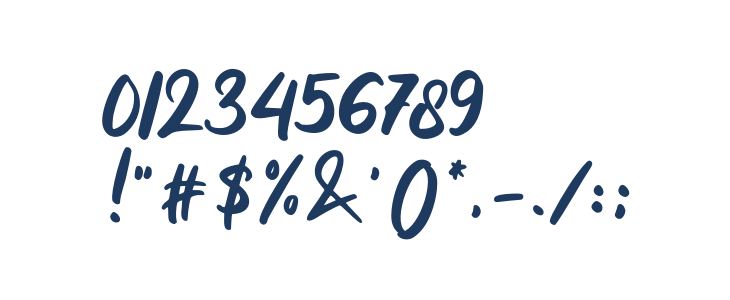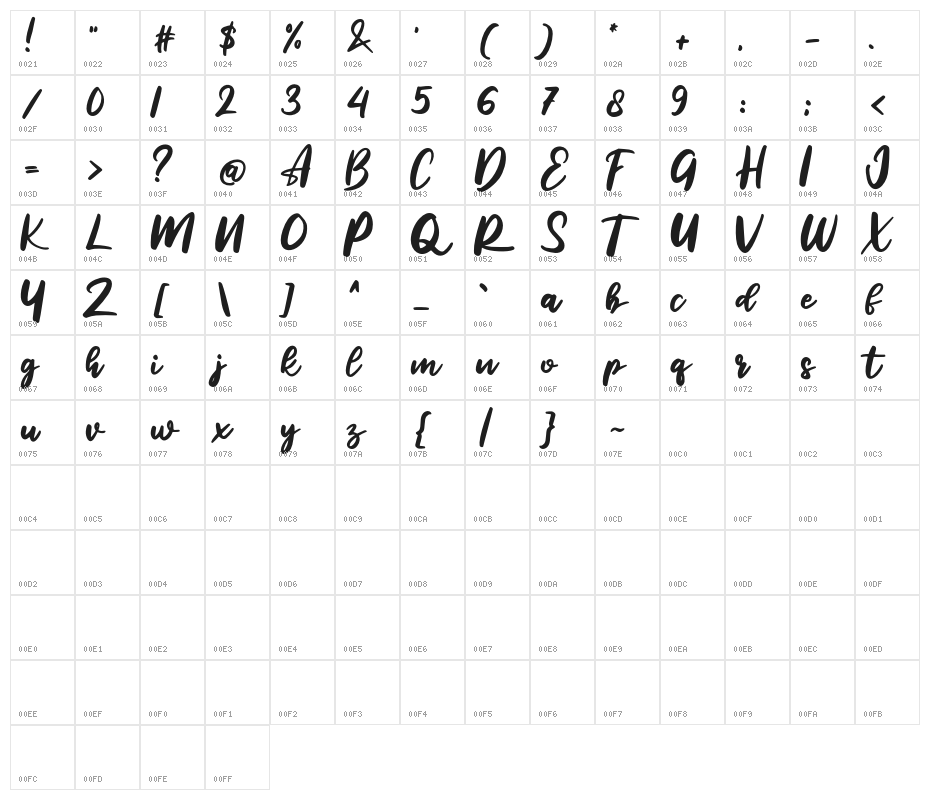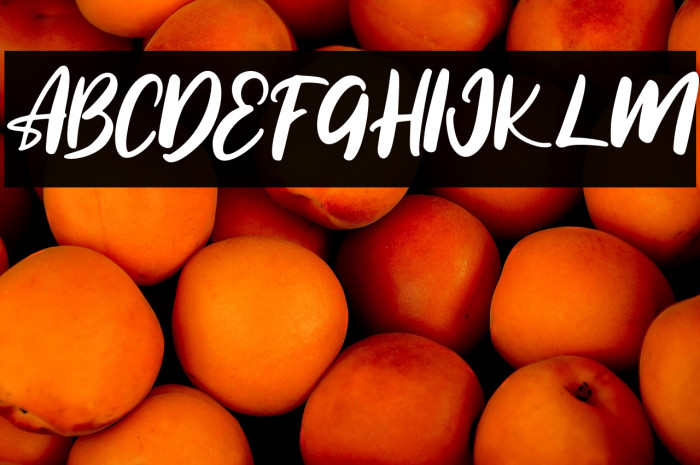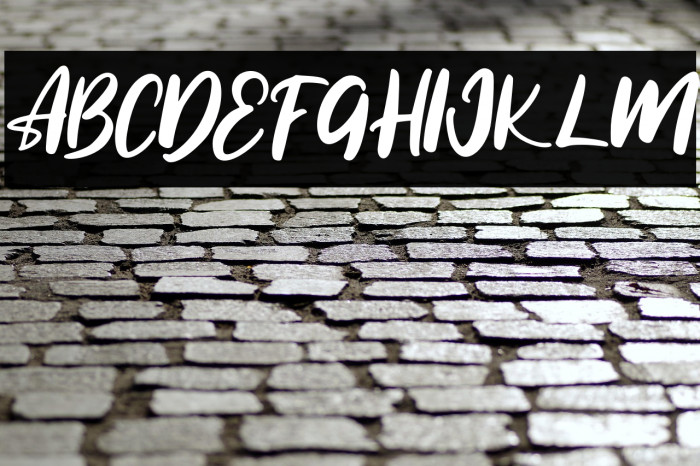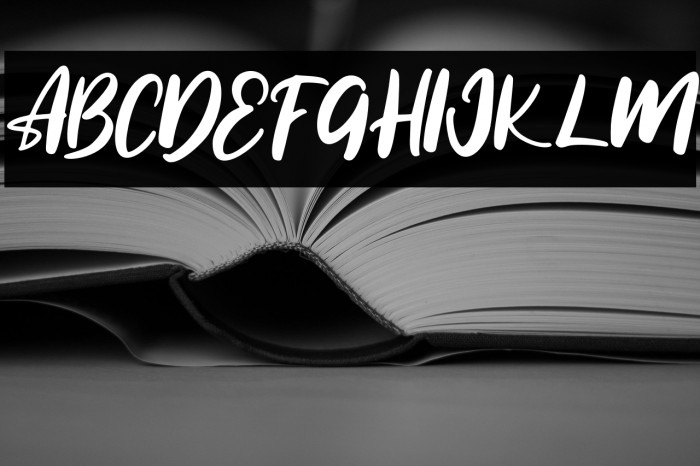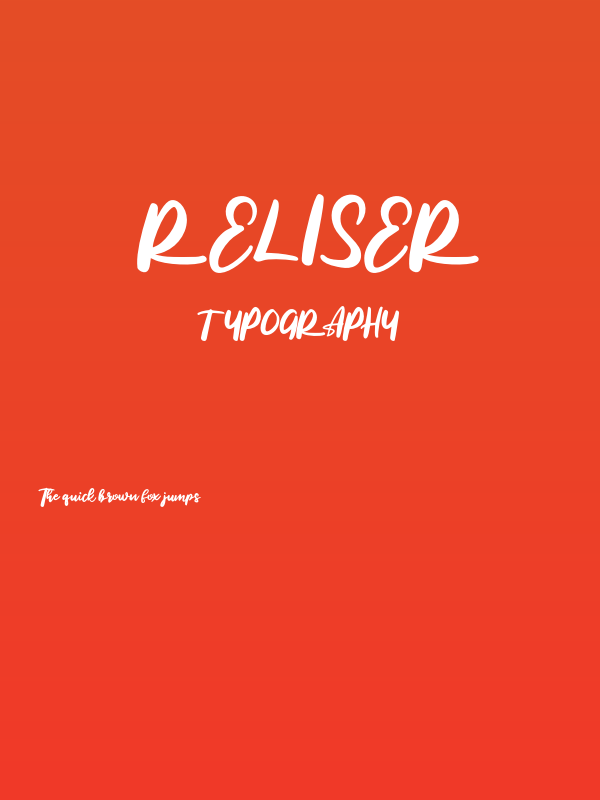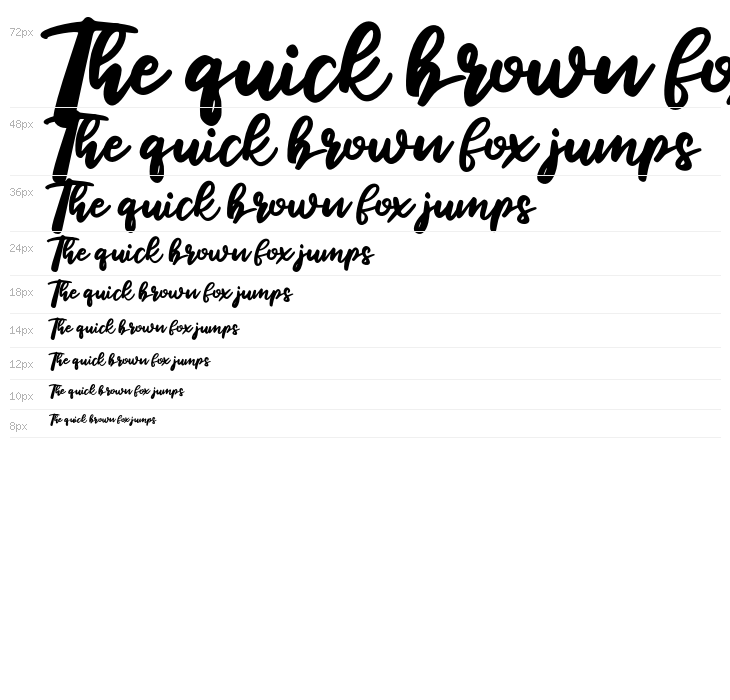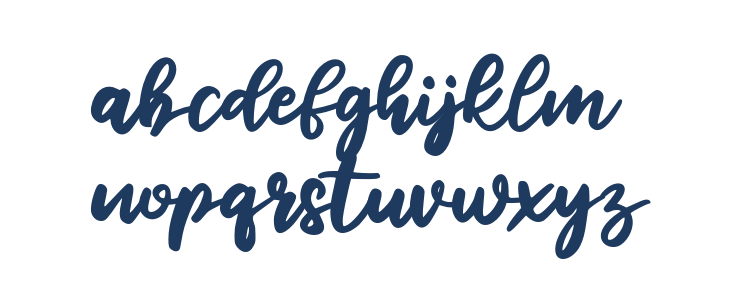
Reliser Font
Reliser Description
This font exudes a lively and dynamic energy with its bold, handwritten style. The characters are fluid and connected, giving a sense of movement and personality. The uppercase letters are slightly more structured, while the lowercase letters maintain a playful, cursive flow. Numbers and special characters follow the same energetic style, making them stand out. The strokes are thick and consistent, providing a strong visual impact. This font is perfect for projects that require a personal touch or a bold statement.
| Use Case | Logos, Headlines, Invitations |
| Proposed Projects | Ideal for greeting cards, invitations, logos, and branding materials that need a personal and dynamic touch. |